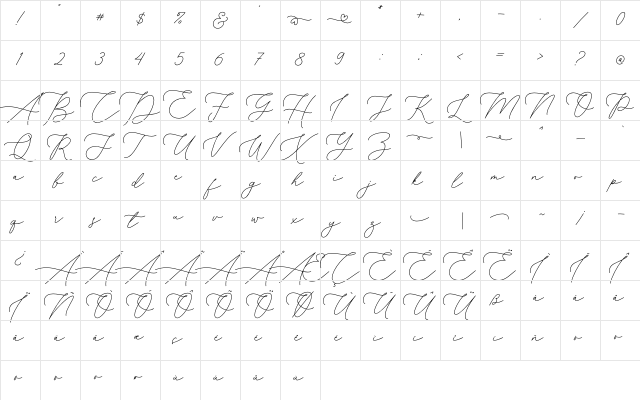
Creampie Regular
| Foundry | Ef Studio - Luthfi Fauzi |
| Designer | Ef Studio - Luthfi Fauzi |
Design Context for Creampie Typeface
Creampie is a composed and adaptable typeface that performs quietly and consistently across a wide range of design contexts.